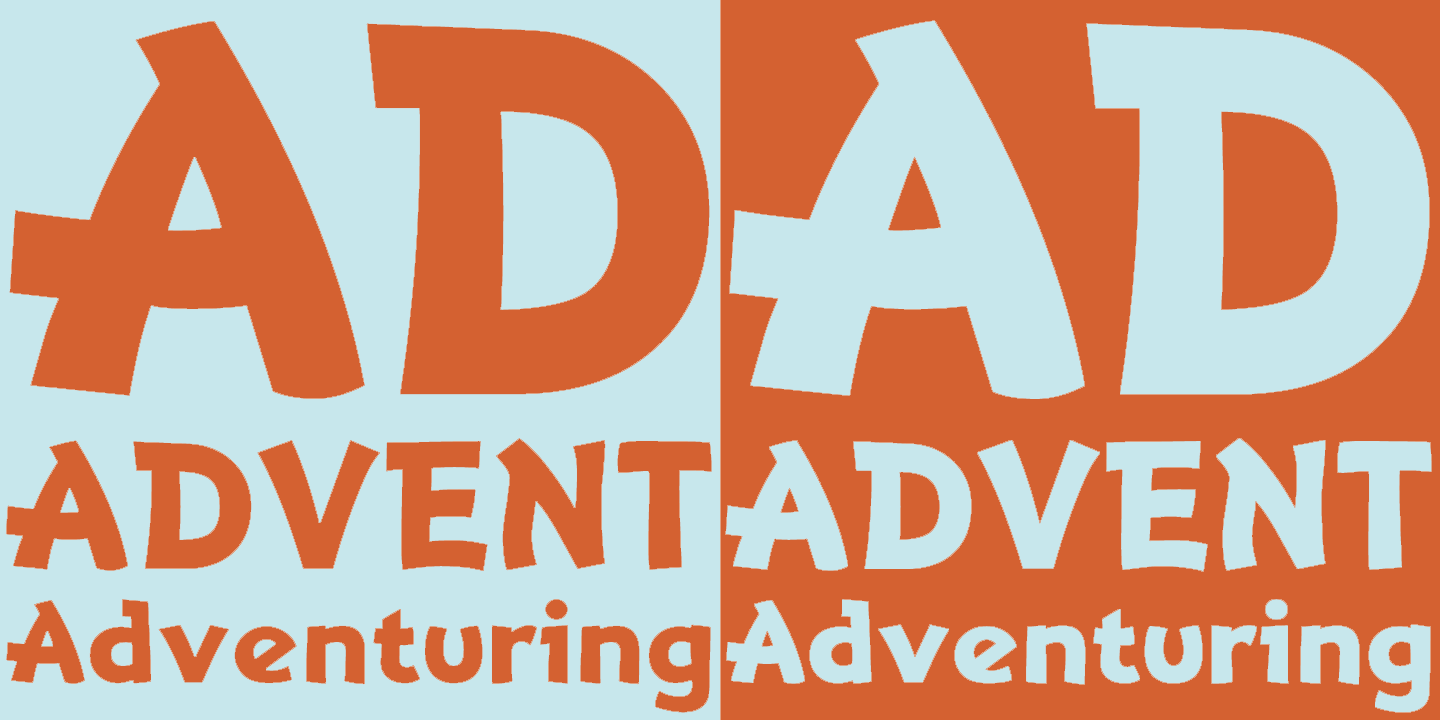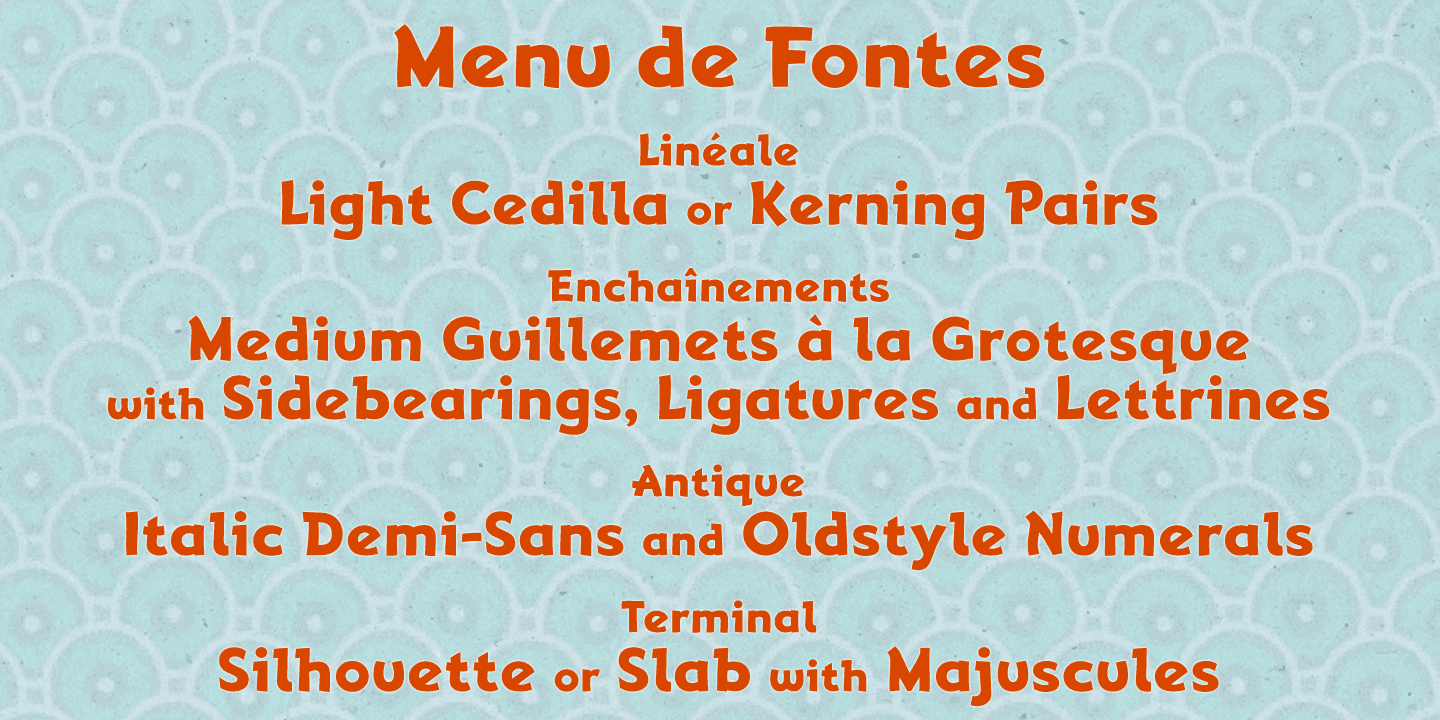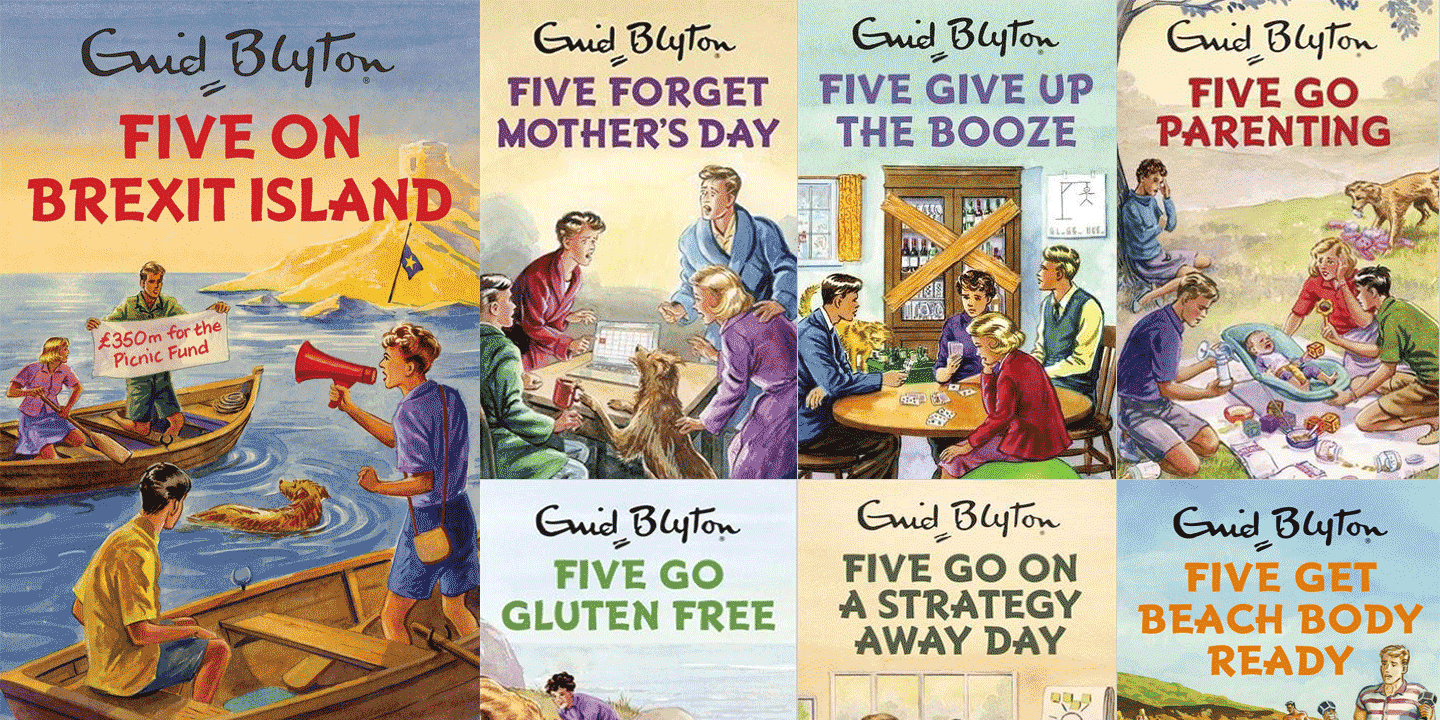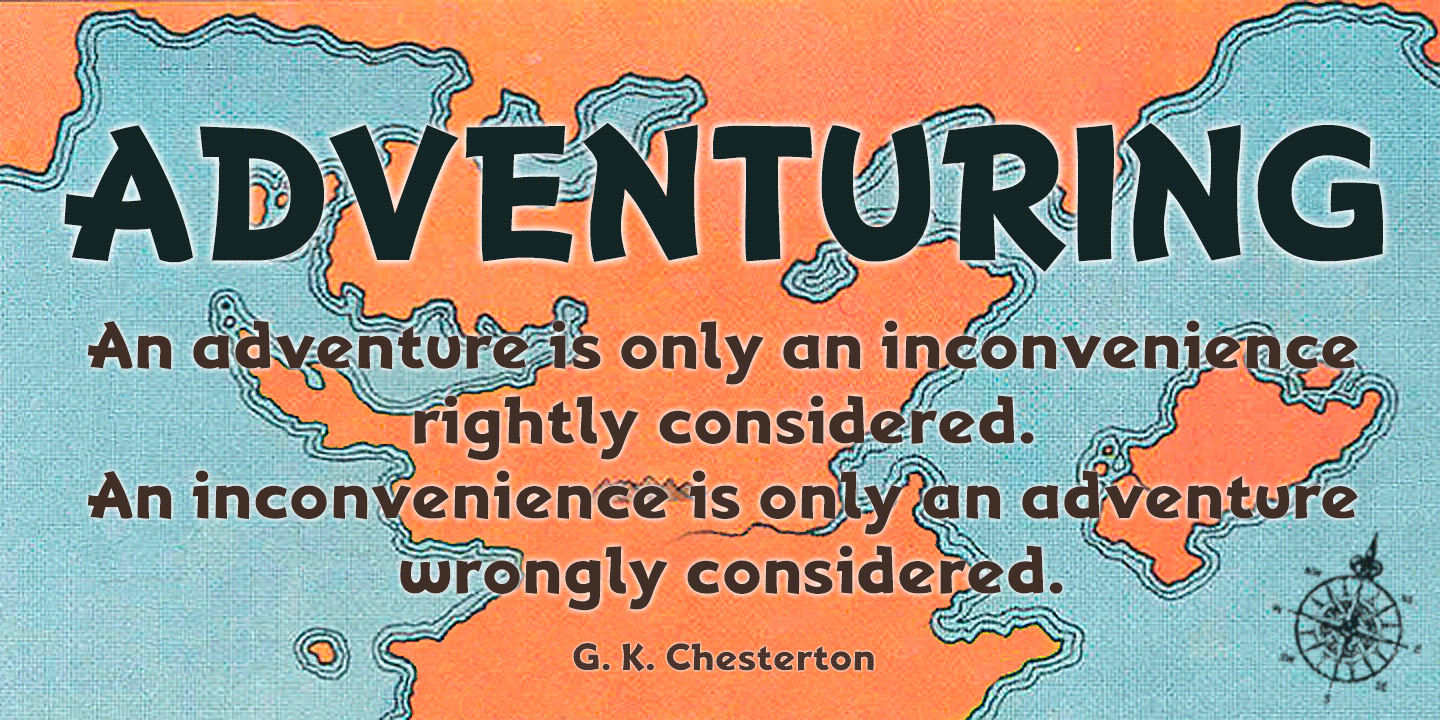
Adventuring
About Adventuring
Adventuring is a friendly, rock-steady display face which is also animated and exciting. The font evolved from the hand drawn, uppercase title lettering used for the 1950s and 1960s dust jackets of Enid Blyton\’s Famous Five books.